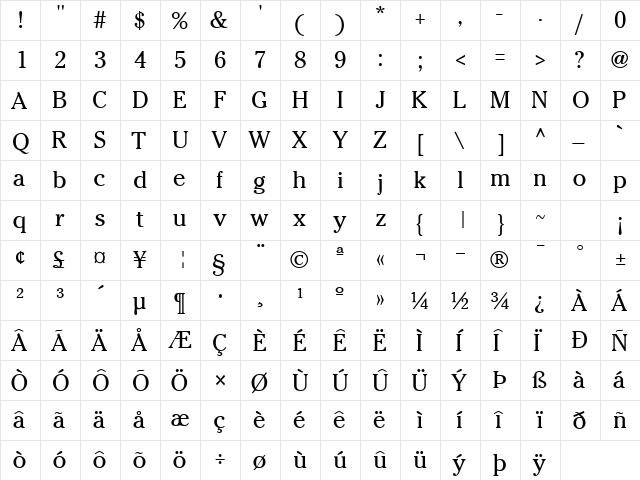
CheltenhamSSK Regular
Design Context for CheltenhamSSK Typeface
CheltenhamSSK is a composed and adaptable typeface that performs quietly and consistently across a wide range of design contexts.